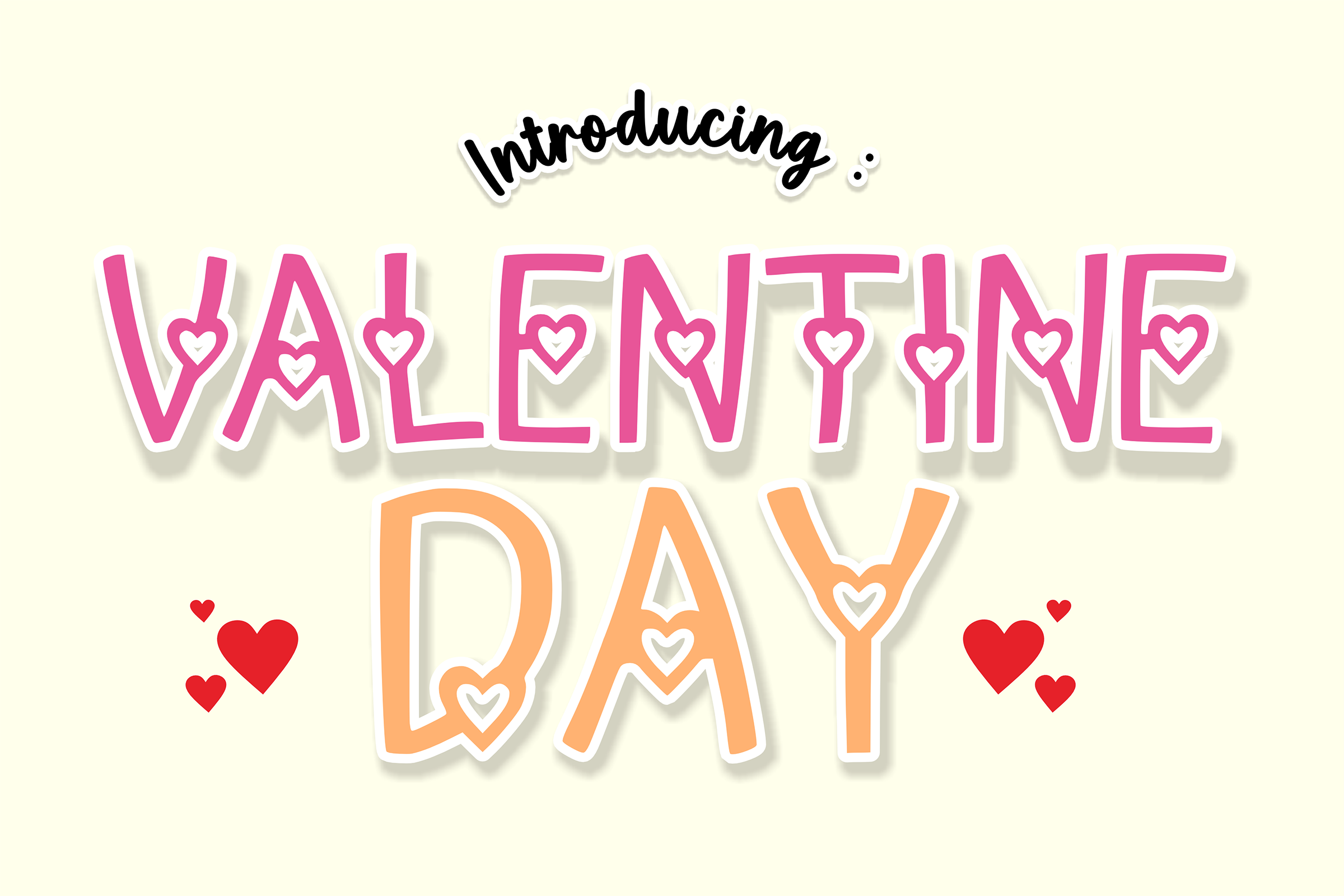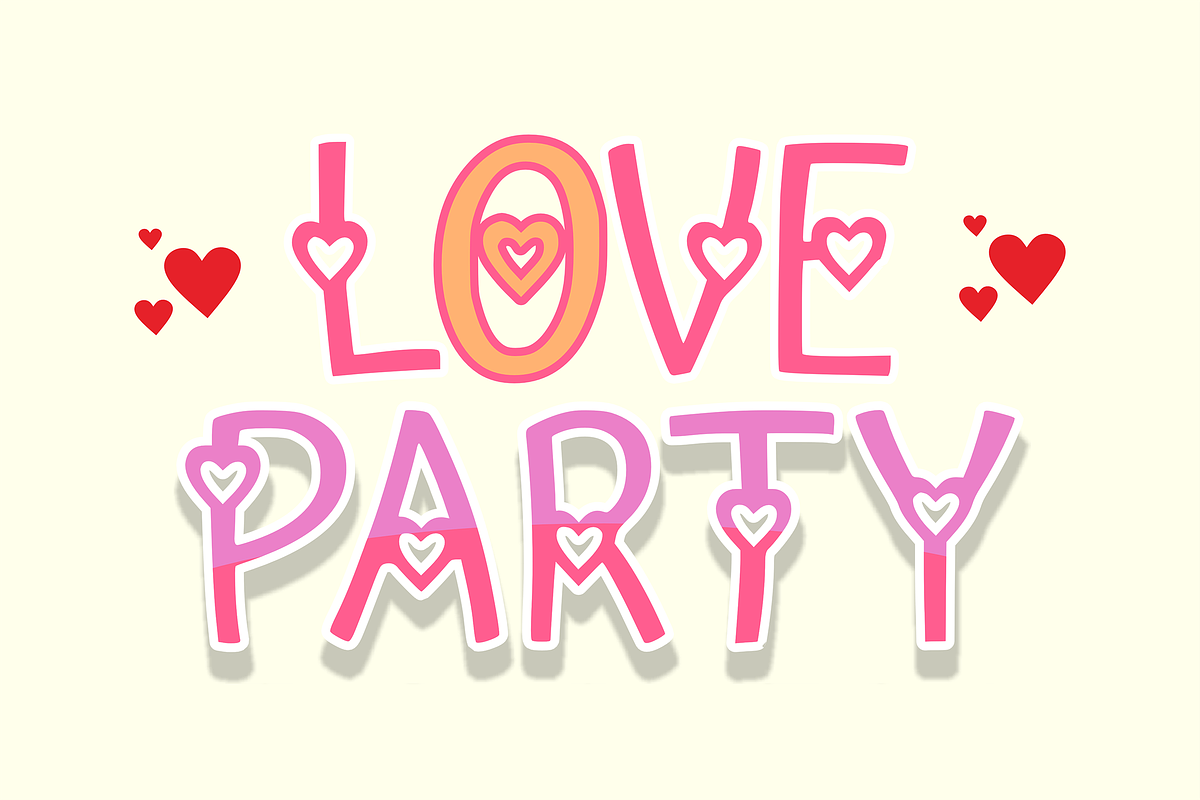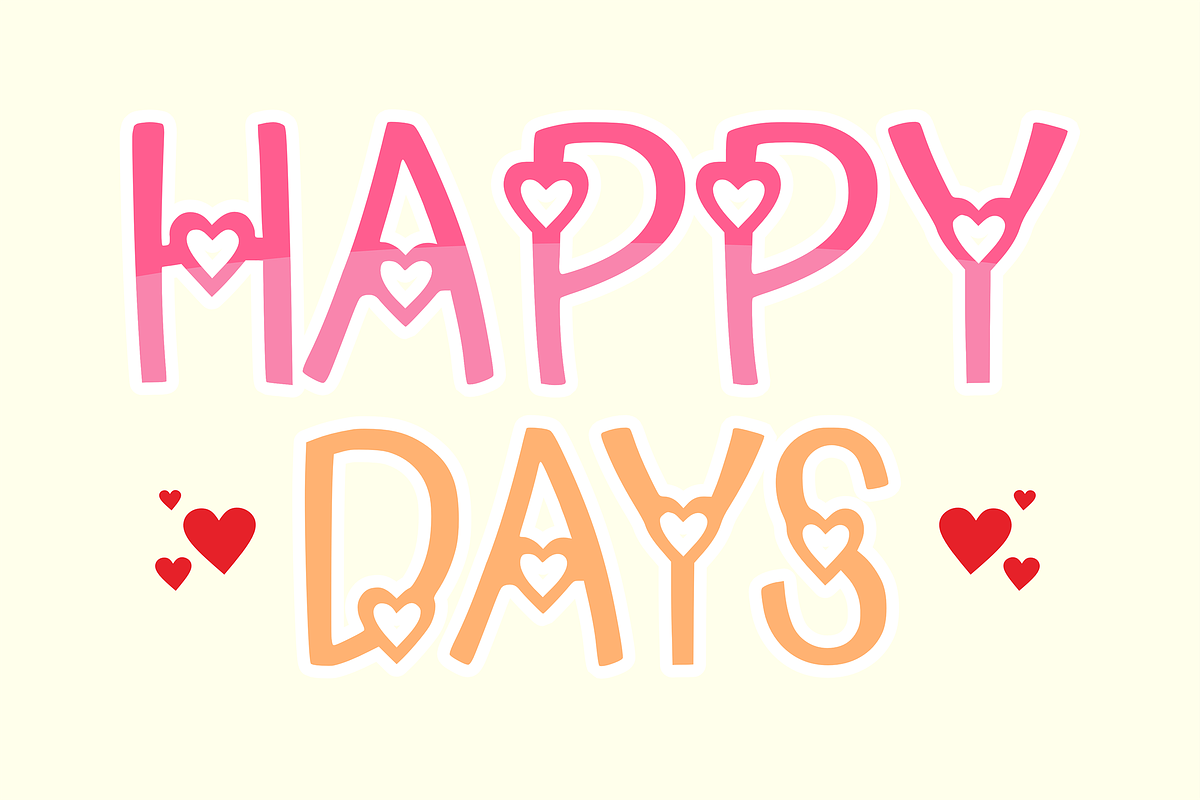
Valentine Day - Cartoon Font Types
Immerse yourself in the world of these unique Valentine’s Day fonts and turn your creative endeavors into a celebration of love and relationships. Enhance your designs with these charming typefaces, perfect for expressing your feelings on special occasions or adding a fun touch to everyday crafts.